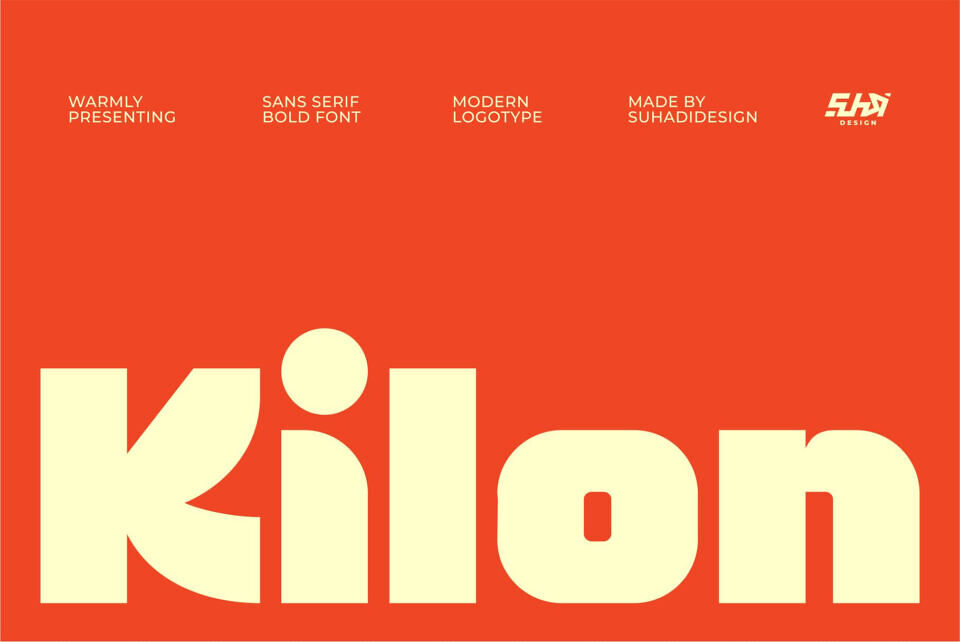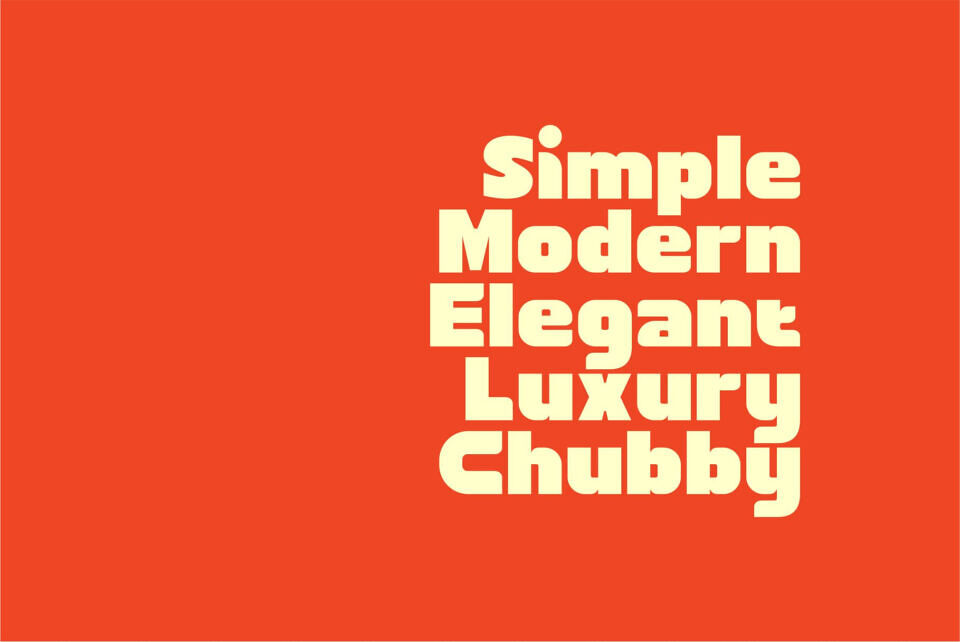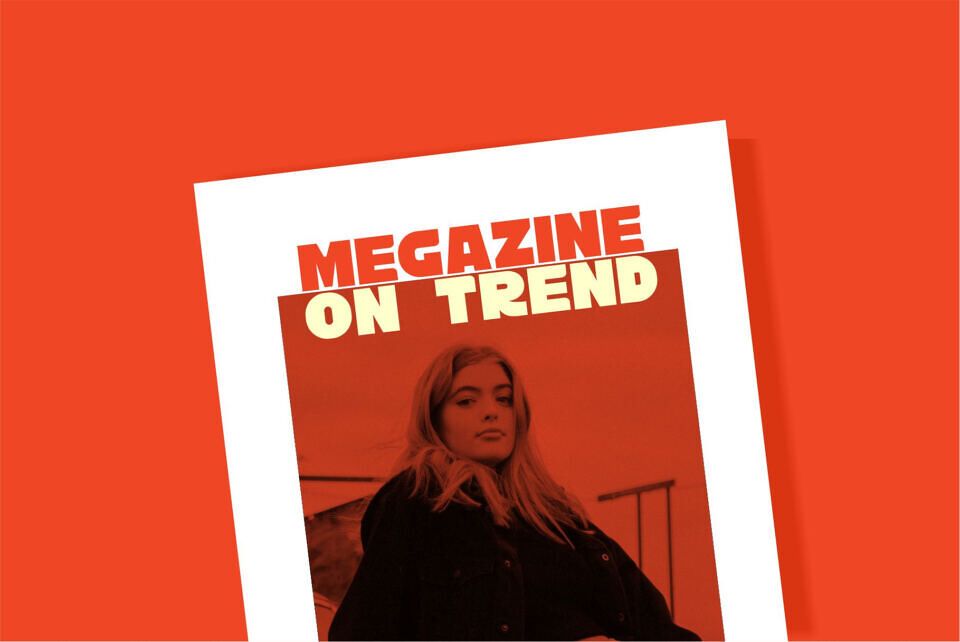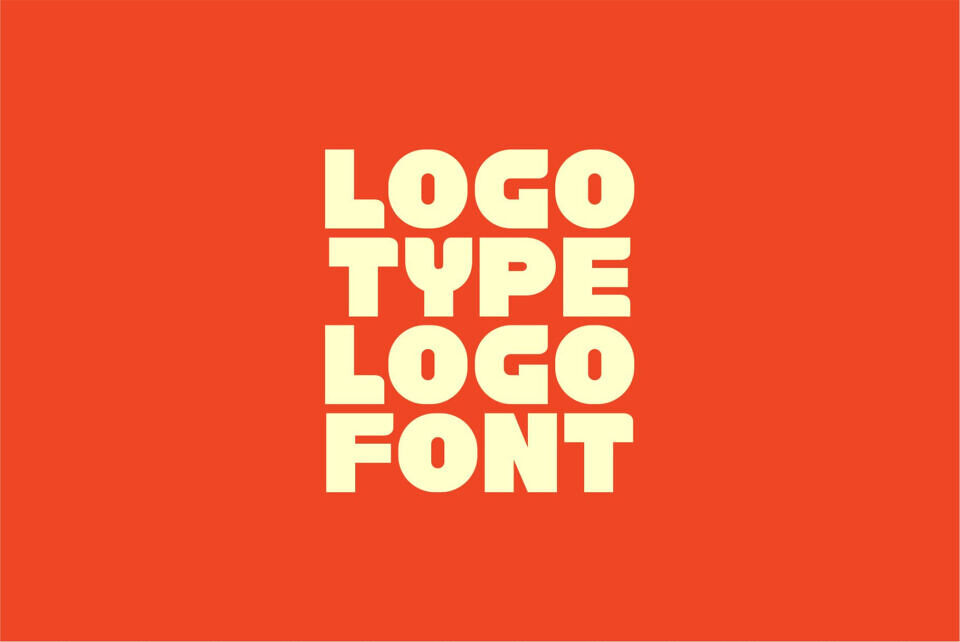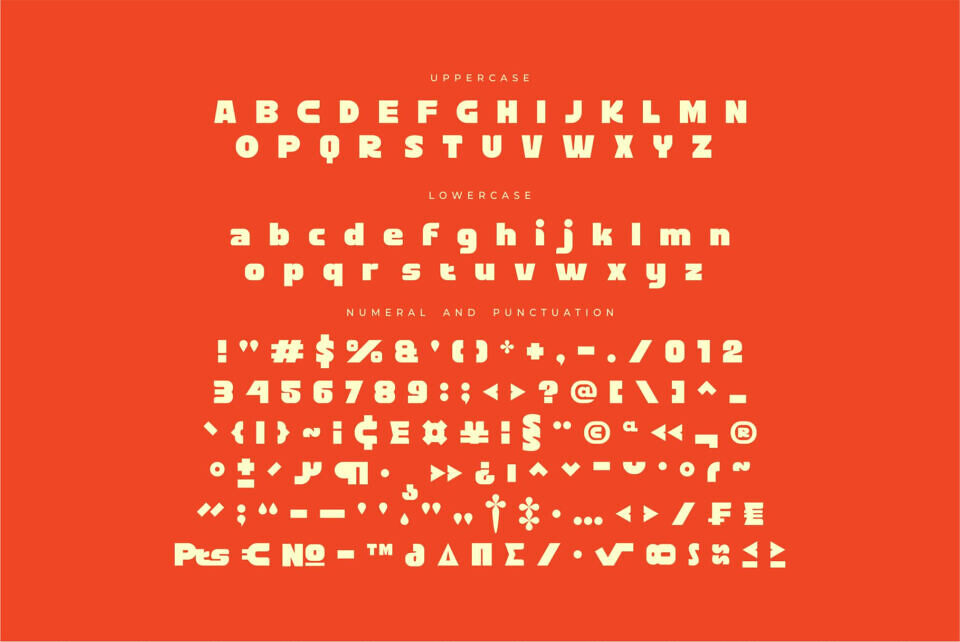
Kilon Font
This typeface is a study in geometric perfection, featuring ultra-thick weights and tightly curved counters that create a sense of solidity and warmth. The Kilon font is “warmly presenting” a confident aesthetic that strips away the unnecessary, leaving only the powerful, clean essence of contemporary design.
The Kilon typeface is the ultimate tool for corporate branding, tech startups, and minimalist packaging. Its heavyweight and “modern logotype” structure make the Kilon font an ideal choice for bold website headers, app icons, and signage where instant brand recognition is required.